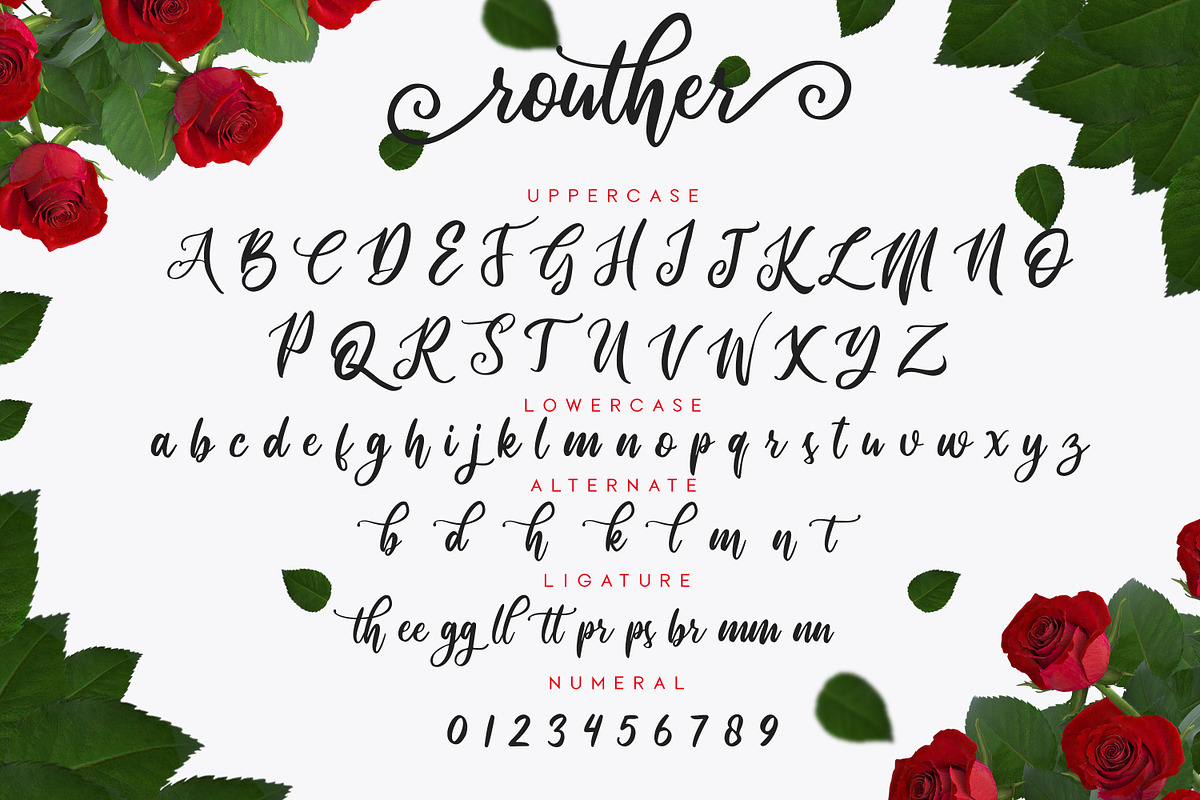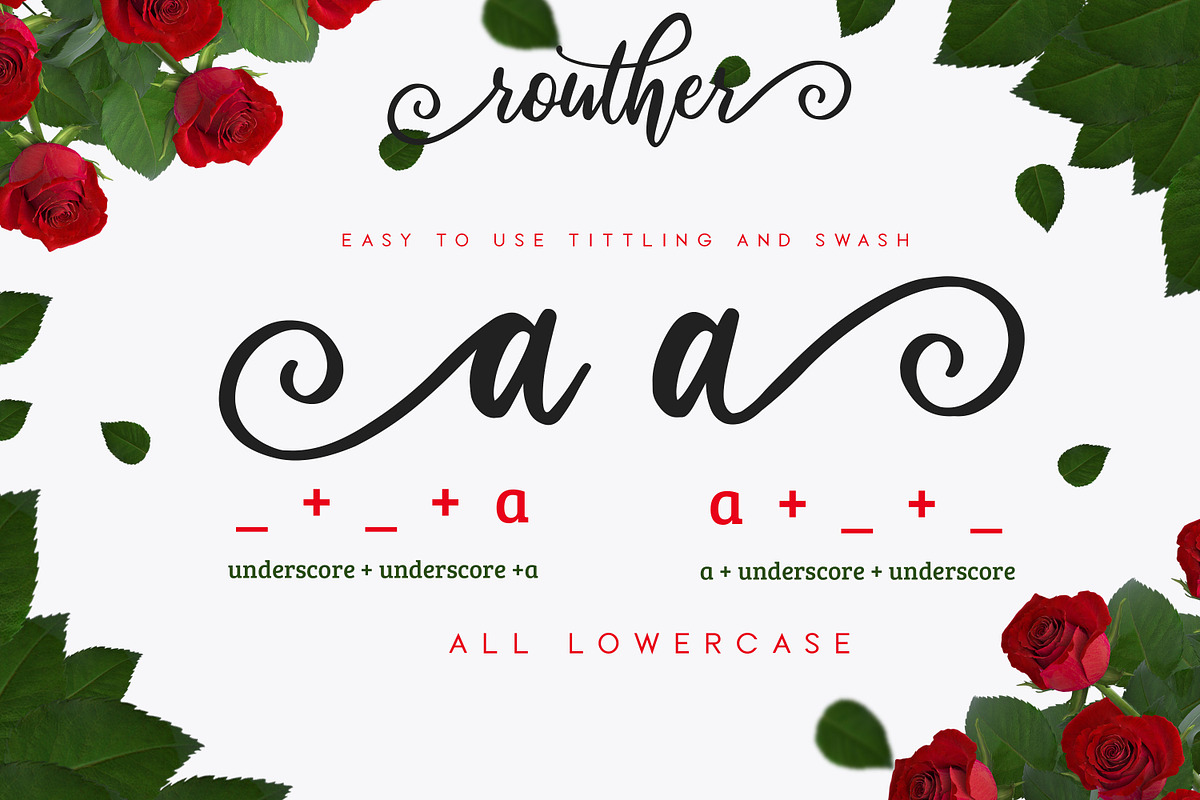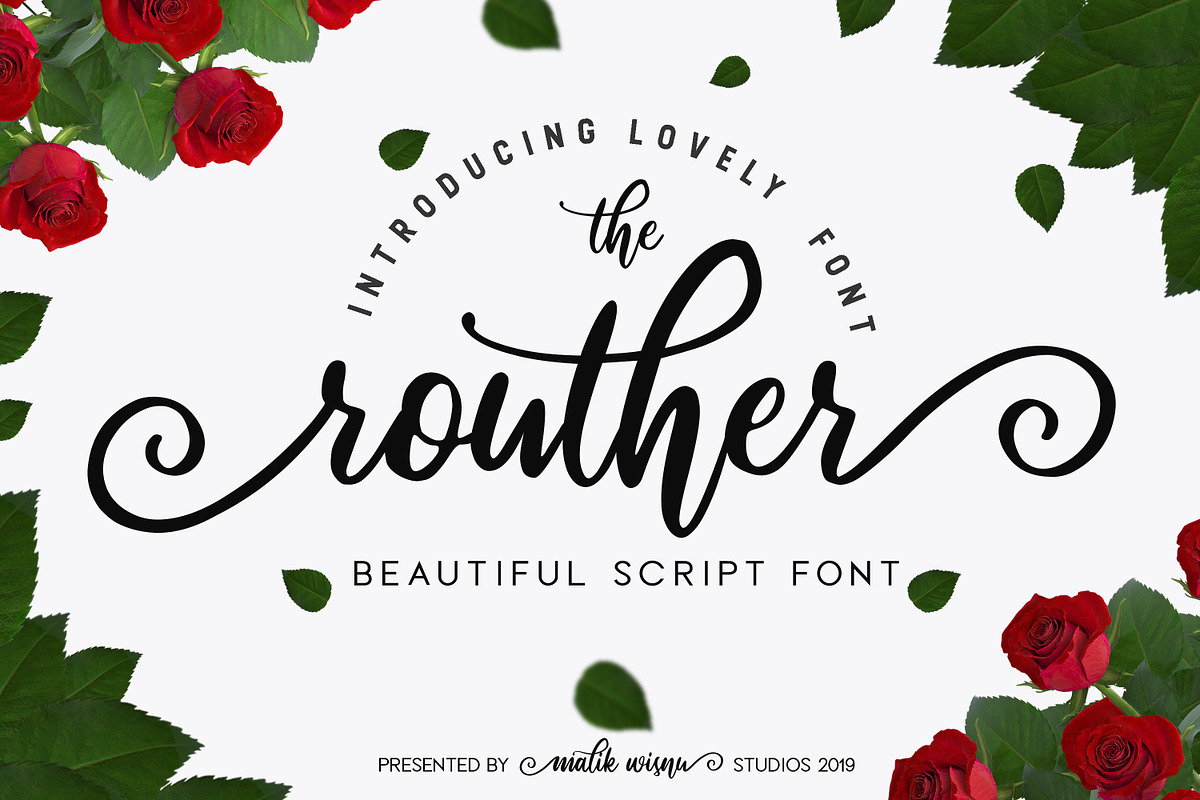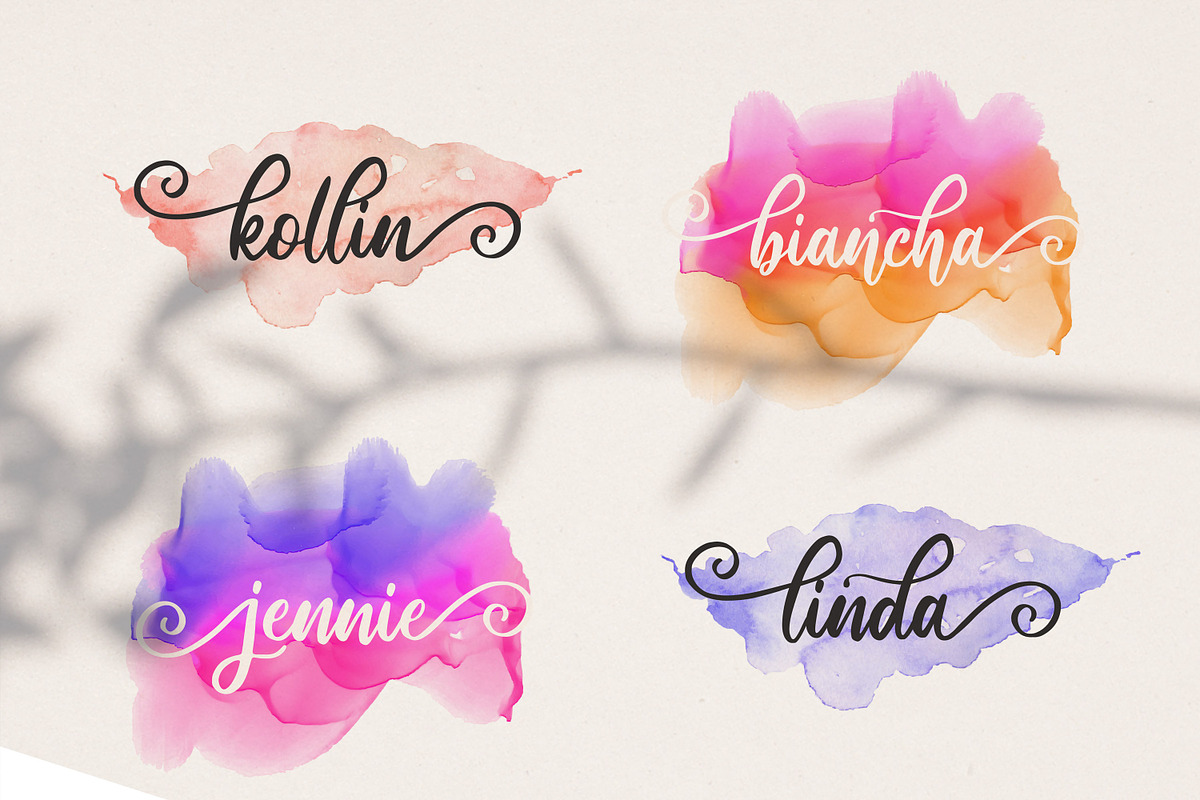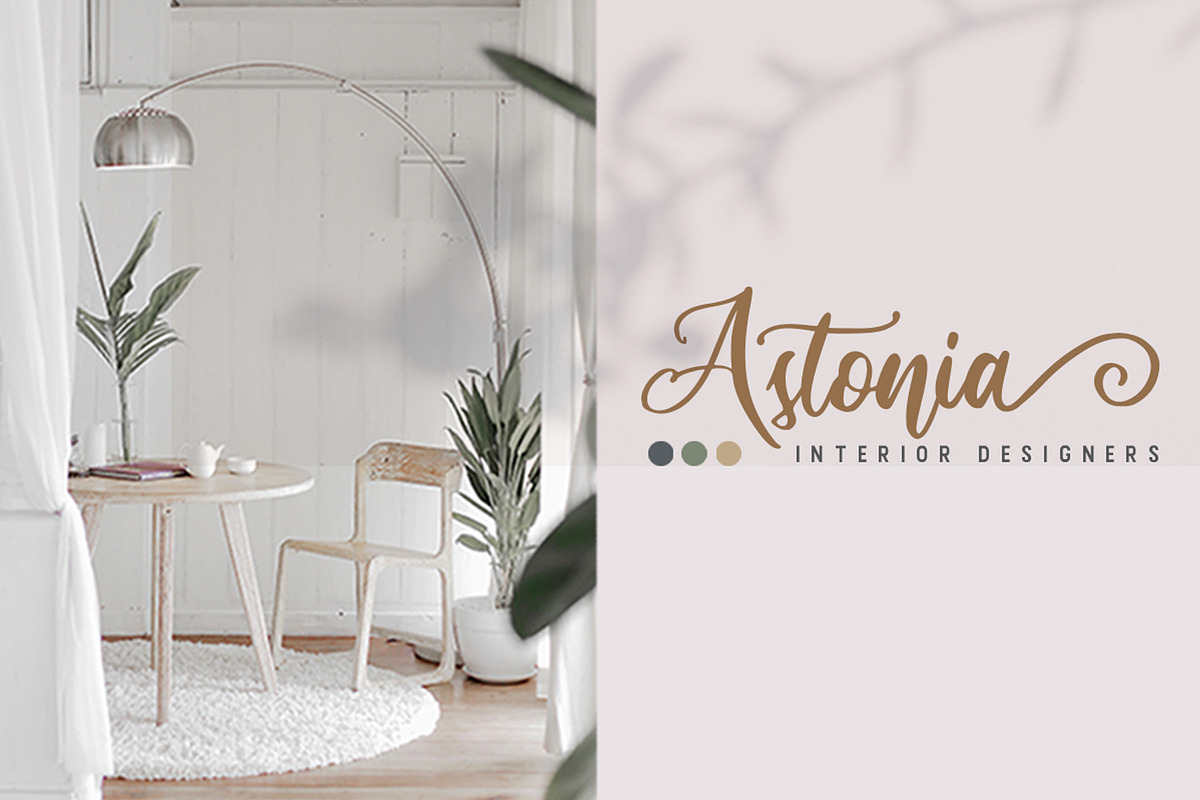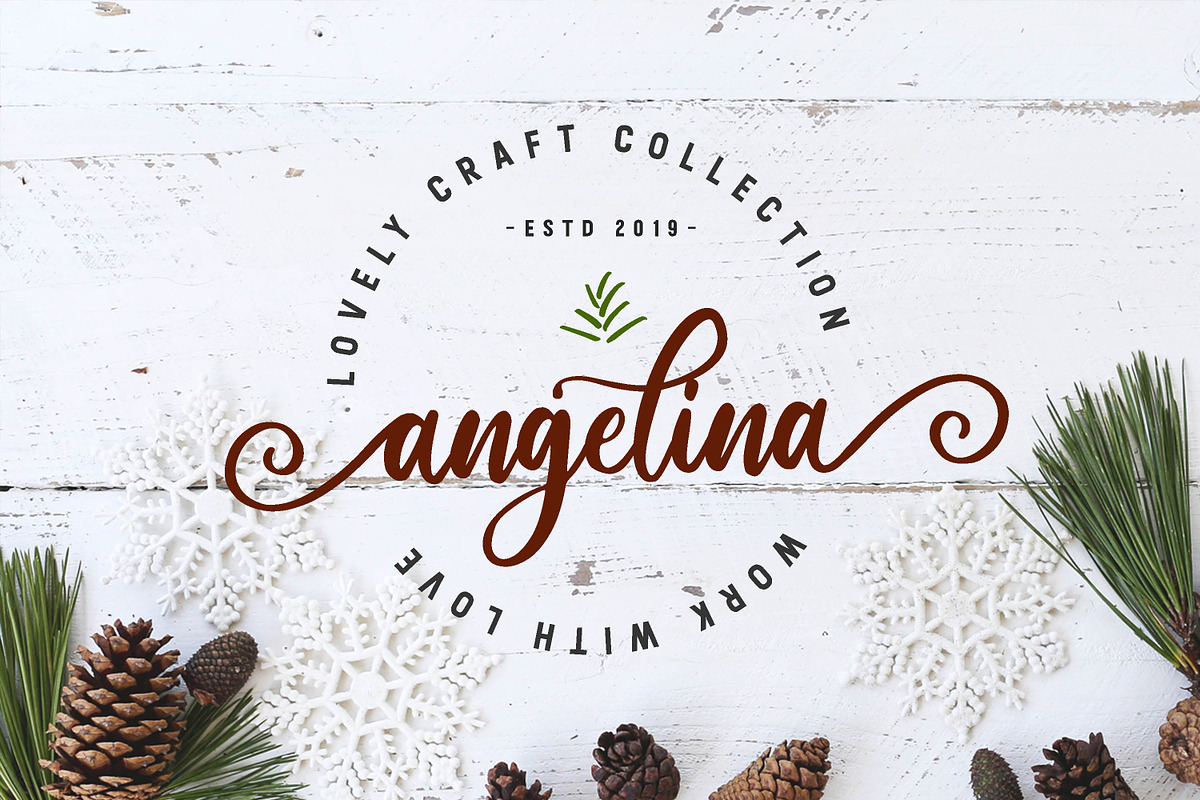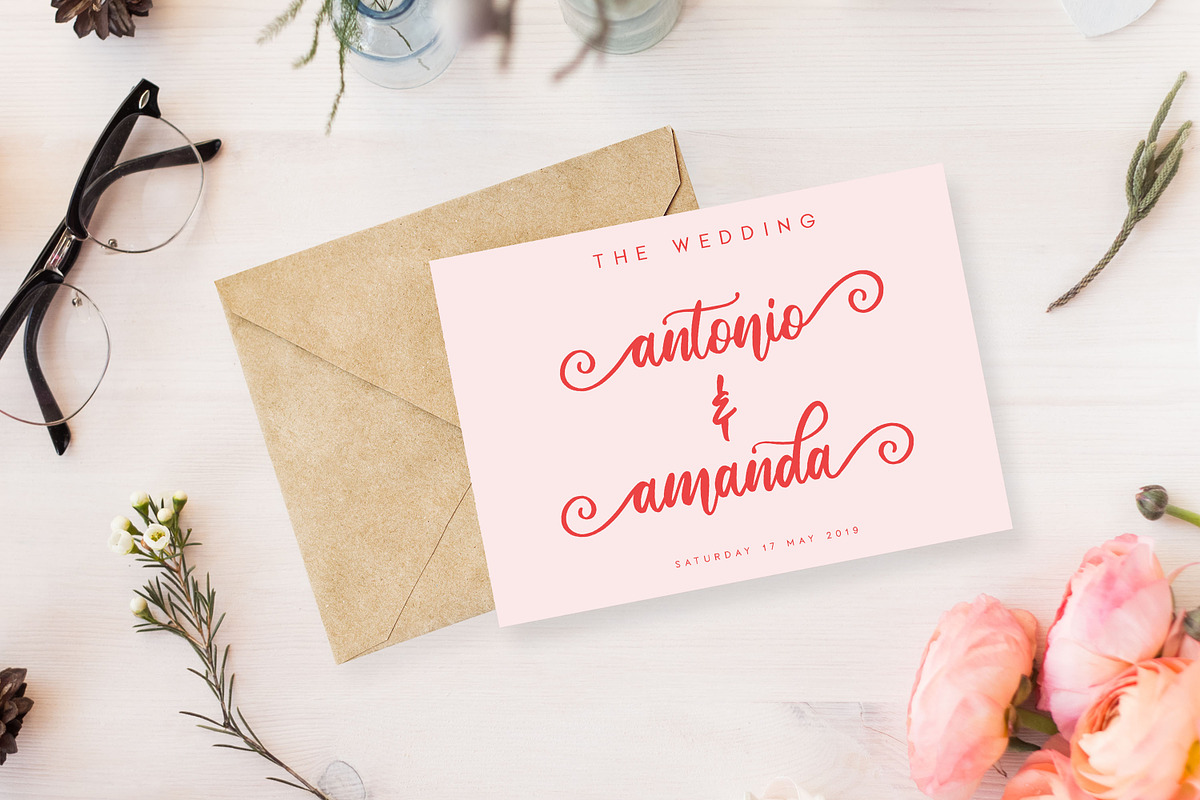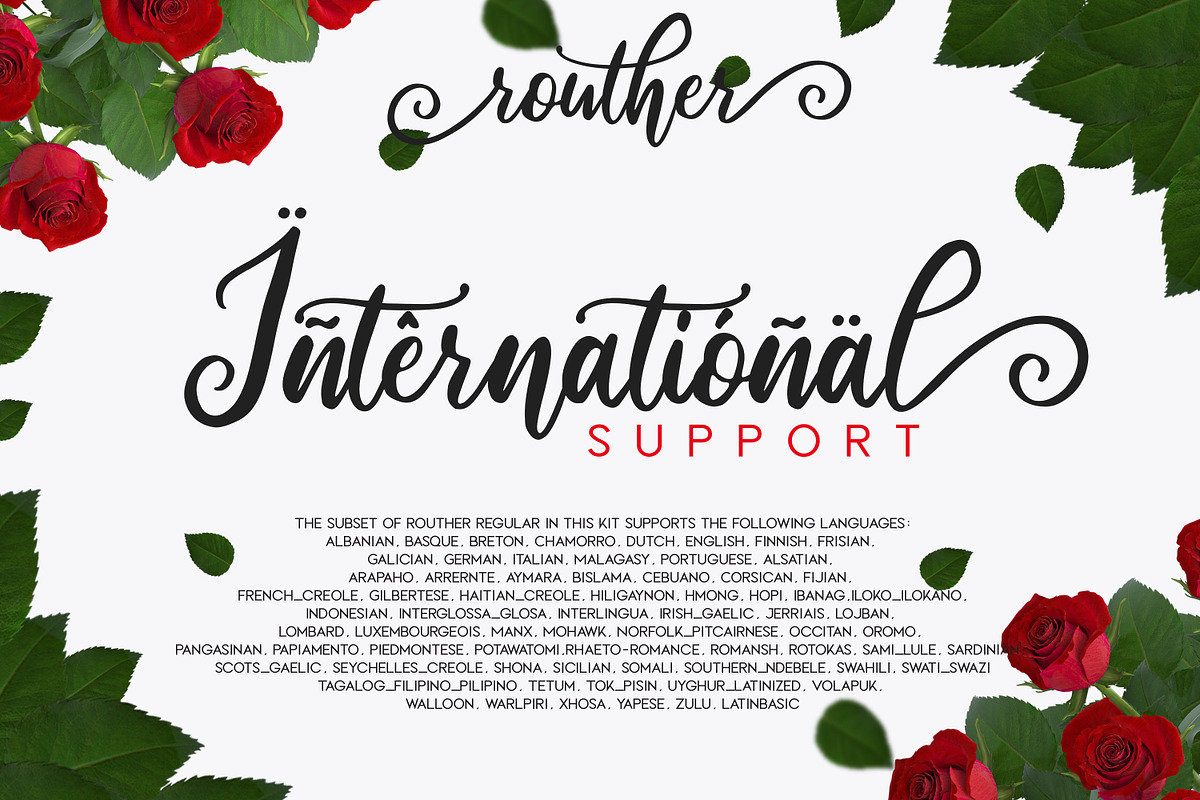
routher - beautiful script font
Introducing routher is a Beautiful Script font with Inspired by lovely and beautiful branded stuffs make this font looks modern and awesome in many way to your latest project. routher is perfect for logos & branding, photography, invitation, watermark, advertisements,product designs, stationery, wedding designs,label ,product packaging, special events or anything that need special taste.